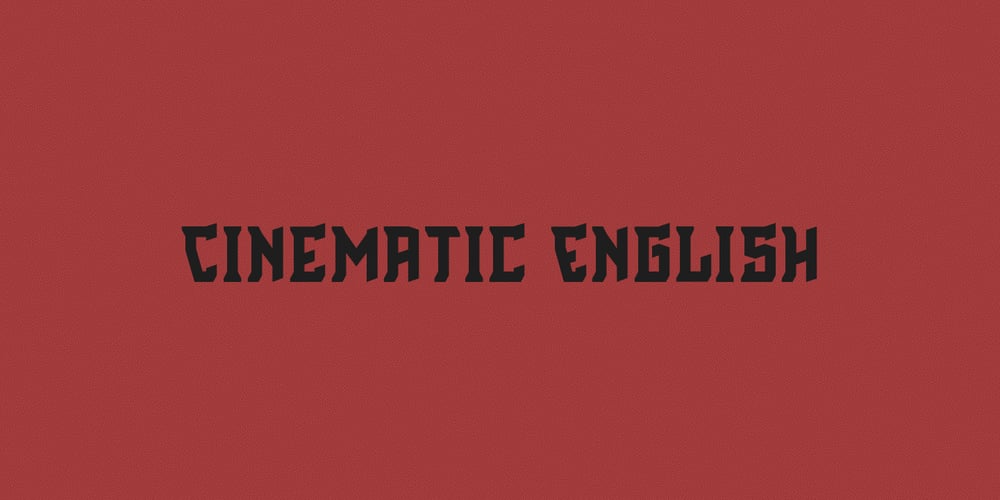
Cinematic English
Cinematic English font
Cinematic English Font Family was designed by Mirco Zuchowski and published by Mirco Zett. Cinematic English contains 2 styles and family package options. Cinematic English is a decorative font inspired by modern movie logotypes and classical black letter typefaces.